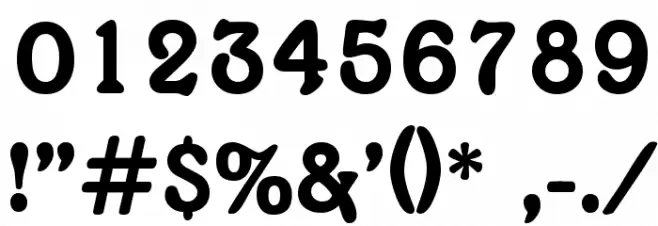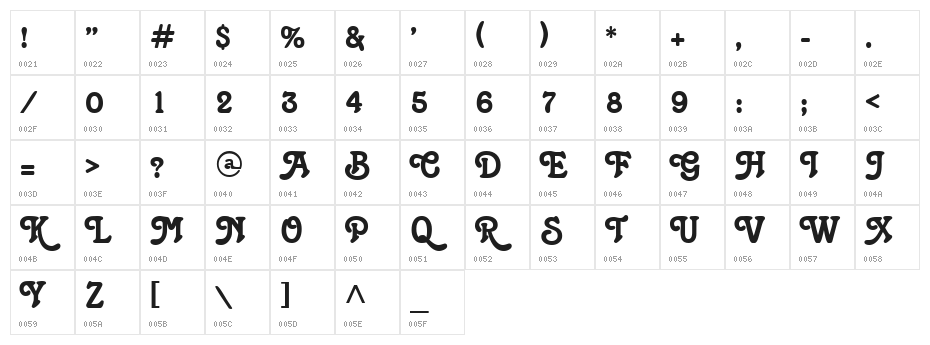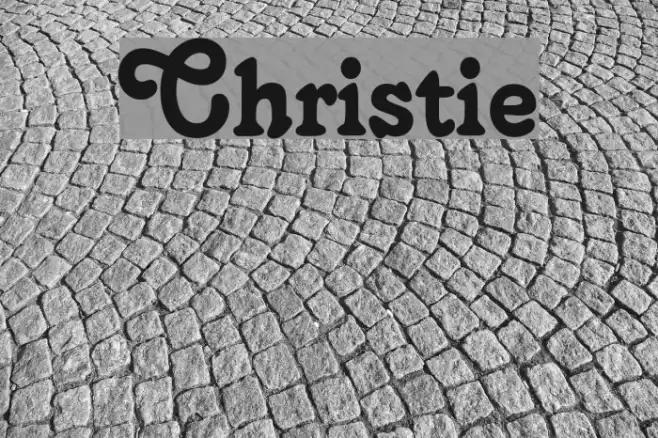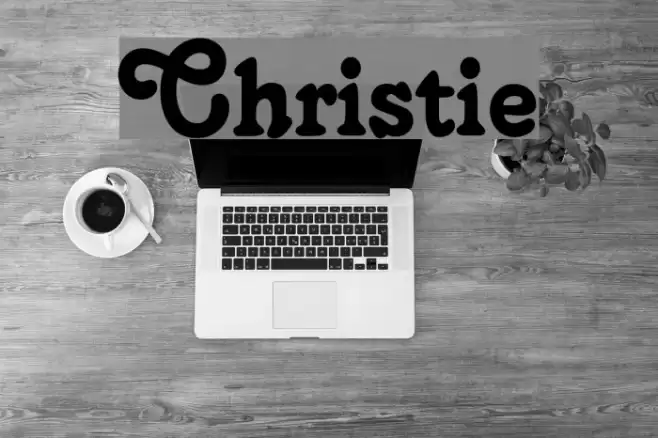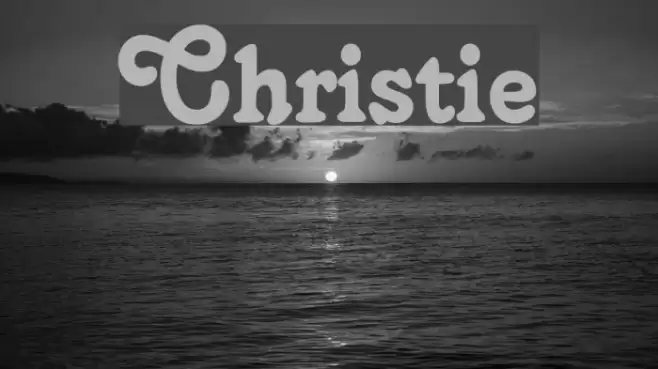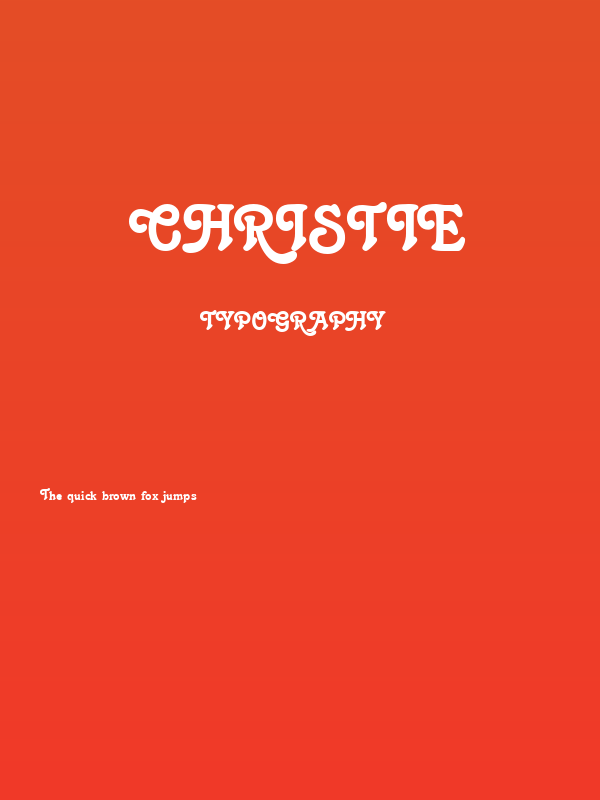
Christie Font
Christie Description
This font features a playful and bold design with a whimsical touch. The characters are rounded and have a slightly exaggerated thickness, giving them a cartoonish and friendly appearance. The uppercase letters are particularly distinctive, with unique curves and flourishes that add to the font's charm. The lowercase letters maintain a consistent style, complementing the uppercase with their rounded forms. Numbers and special characters follow the same design principles, ensuring a cohesive look across all elements. The font's overall style is both decorative and approachable, making it suitable for projects that require a fun and engaging visual impact.
Proposed ProjectsIdeal for children's books, playful branding, party invitations, and creative posters.